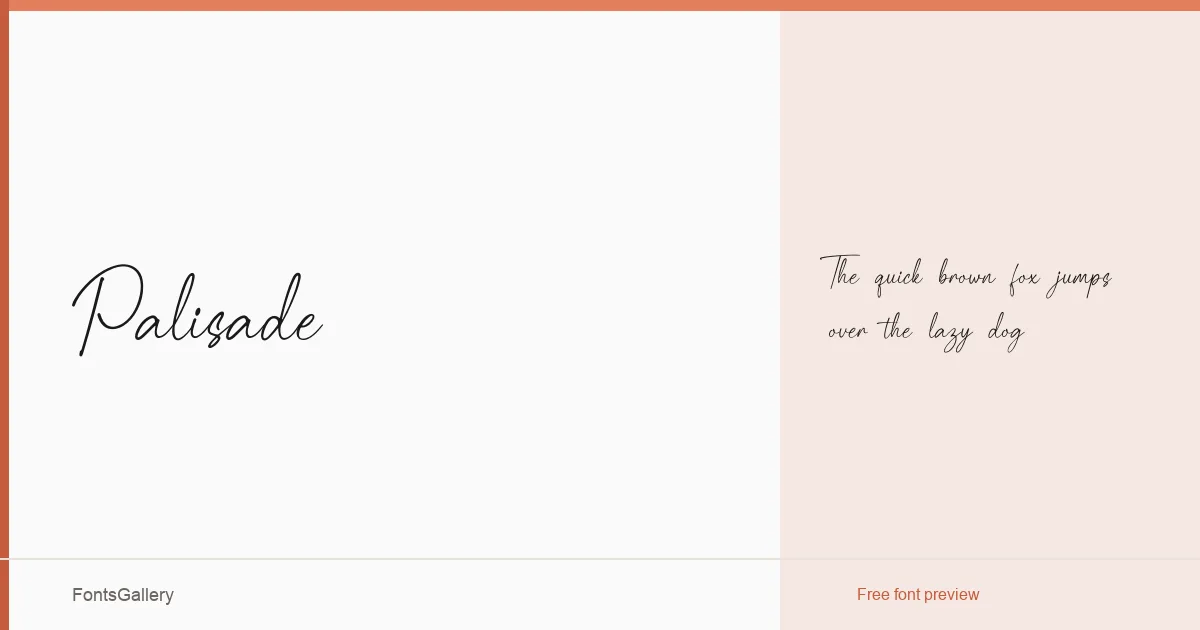
About Palisade Font
Palisade is a script typeface crafted by Aveni Yuanita of Aveni Letter Type, designed to evoke elegance, romance, and timeless charm. Its flowing letterforms make it a compelling choice for projects that call for a refined and classic handcrafted aesthetic. This font brings a graceful personality to any design it touches.
Palisade features the sweeping, fluid strokes characteristic of elegant script typography, with a romantic sensibility that feels both classic and sophisticated. Its letterforms are carefully shaped to create smooth connections and a natural rhythm across words, lending a sense of handwritten warmth. The overall character of the font strikes a balance between ornate expressiveness and timeless refinement.
Palisade is ideally suited for logos, wedding stationery, invitation cards, greeting cards, and branding projects where an elegant and romantic tone is desired. Its classic script style makes it especially effective for luxury and lifestyle brands seeking a distinguished visual identity. Palisade pairs beautifully with Aresink for an all-script combination, or with Helvetica for a striking contrast between expressive script and clean sans-serif typography.